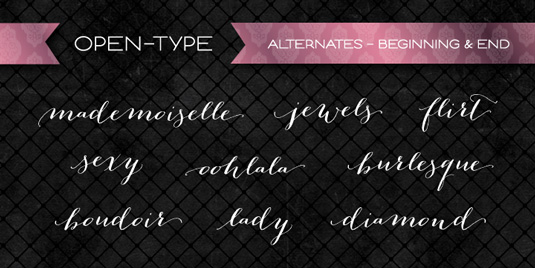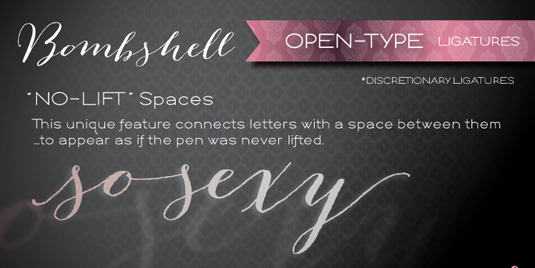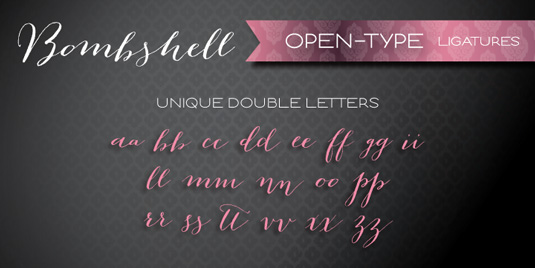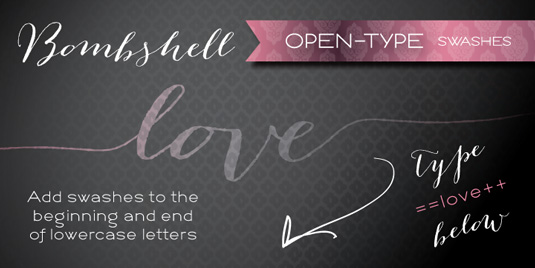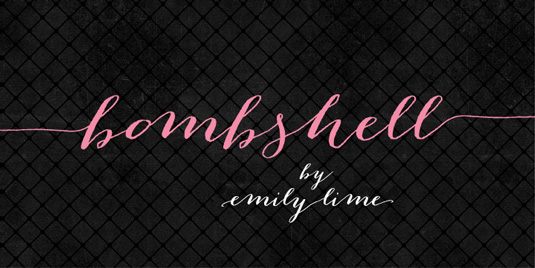
Font of the day: Bombshell Pro
Bombshell Pro by Emily Connors
This passionate, hand-calligraphy font was created by self-taught type designer Emily Conners. Including long connections, the open type version features 800+ glyphs, including initial and terminal letters, alternates, roman numerals (III & IV), and 'run-on' letter connections.